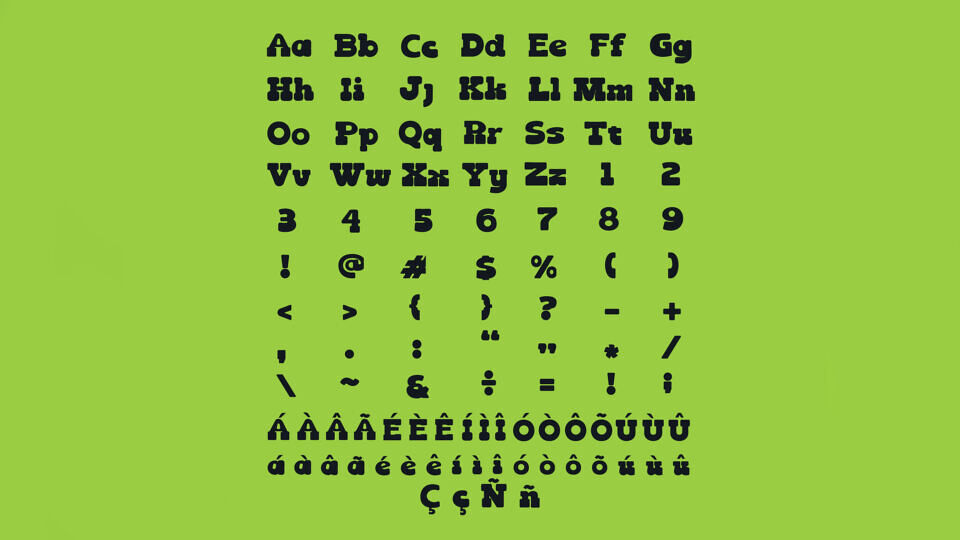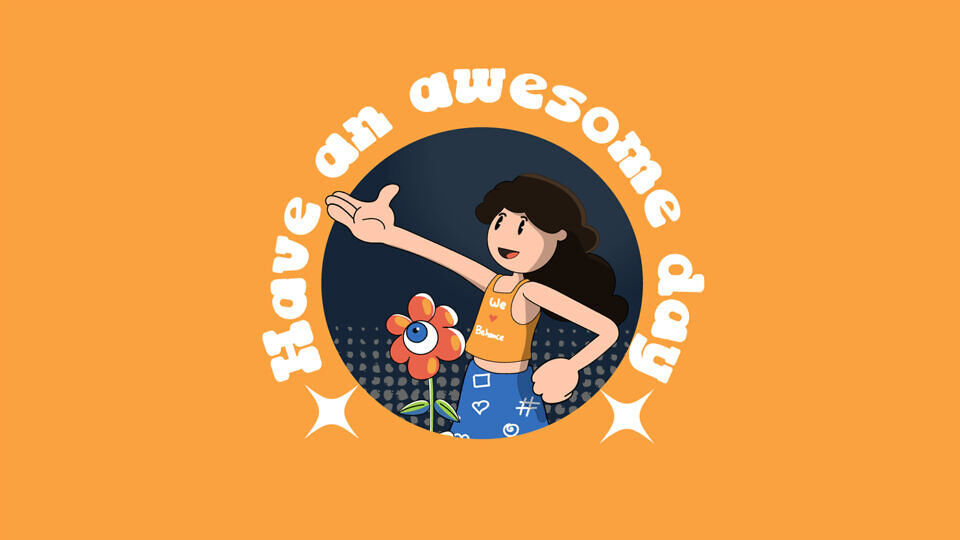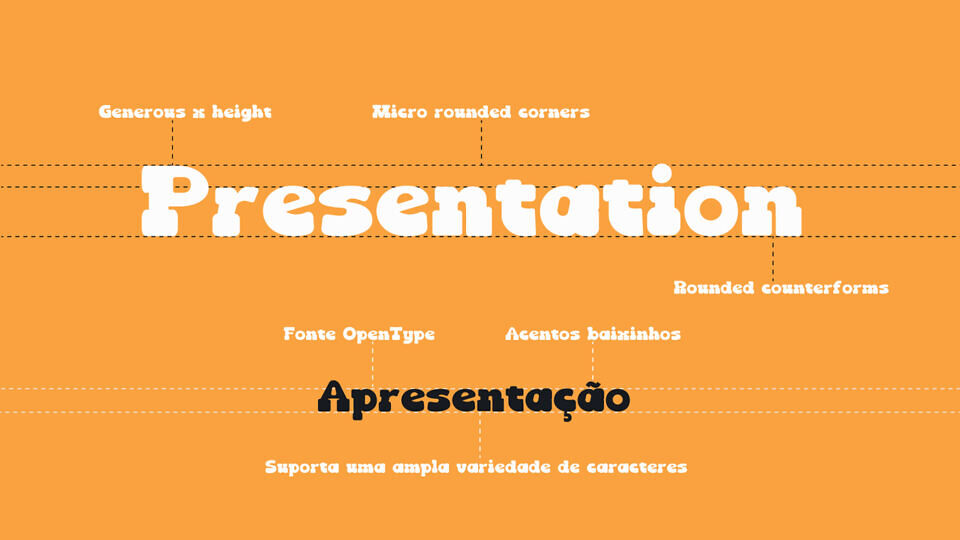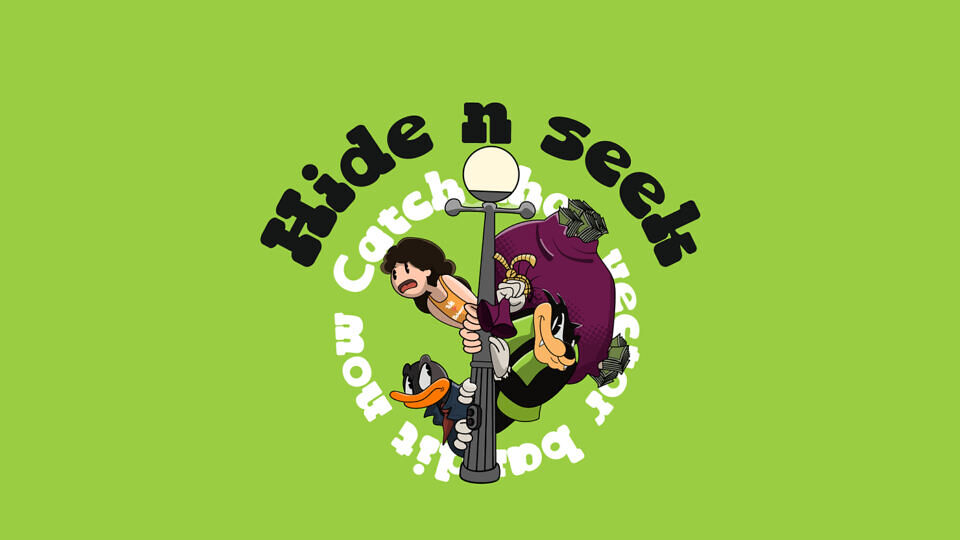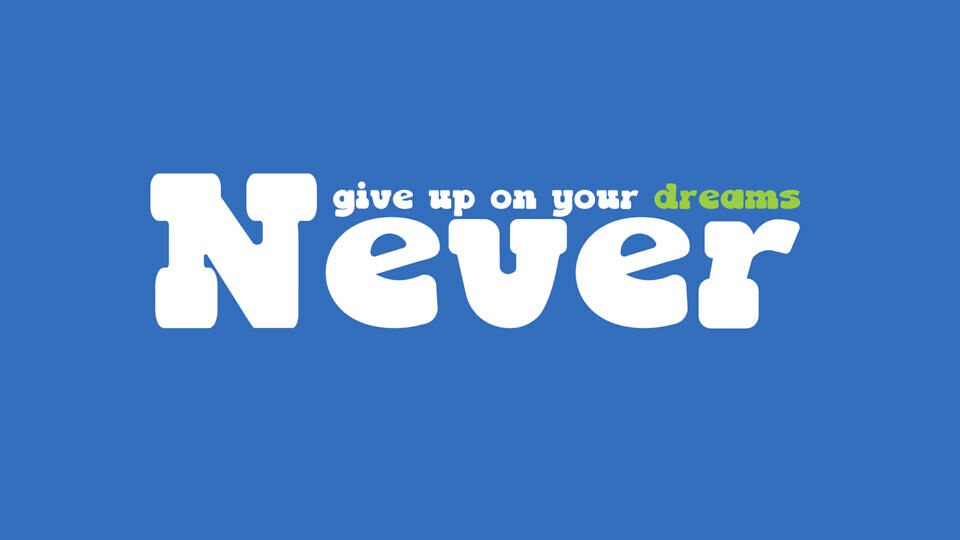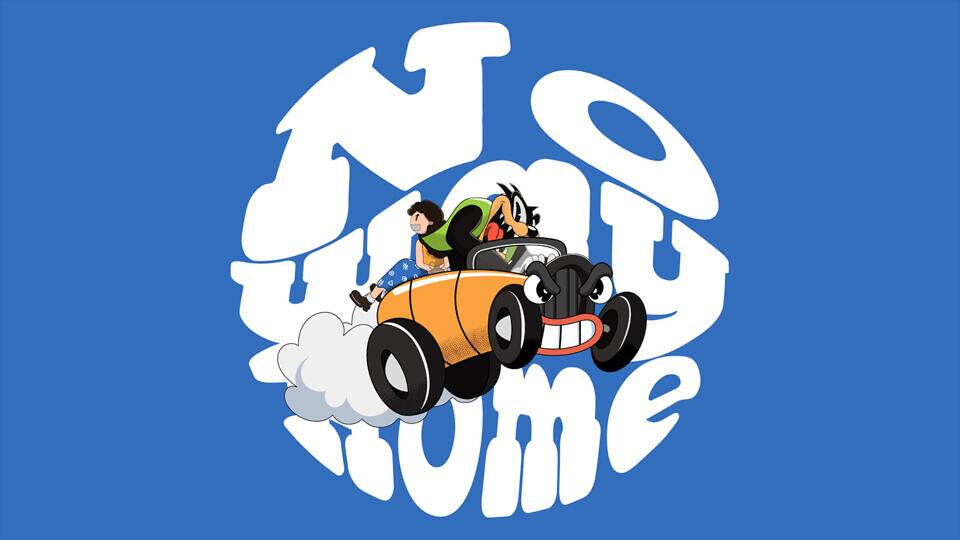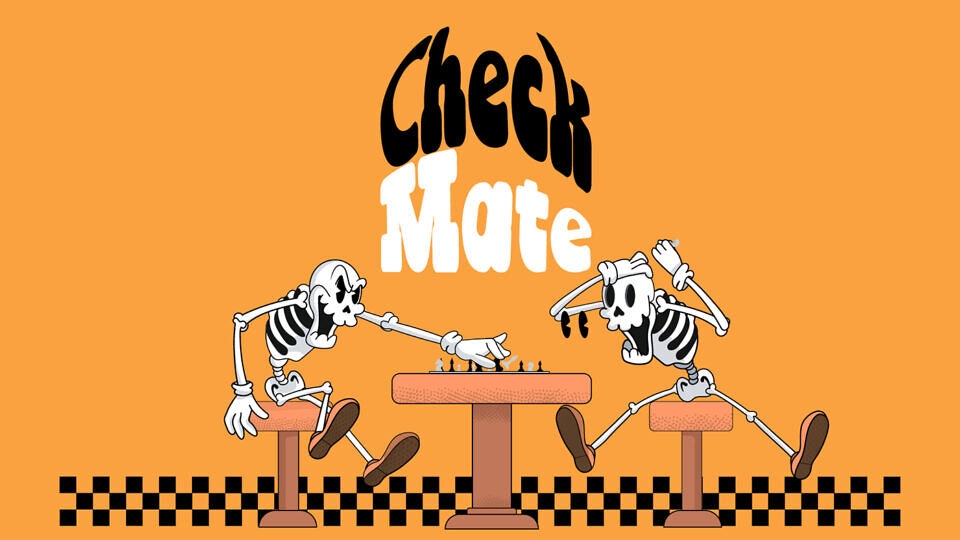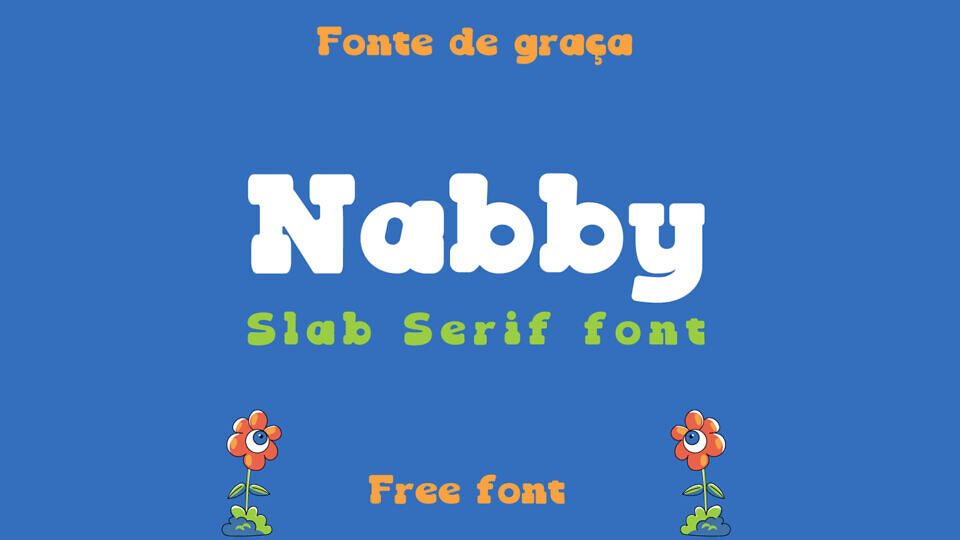
Nabby Slab Font
Inspired by 30s cartoons and Bouba effect, Nabby is a bold and fun font that blends charm and authenticity in every line. This free font by Gustavo Yang and Jack Y is meticulously crafted for use in illustrative and cartoonish designs.